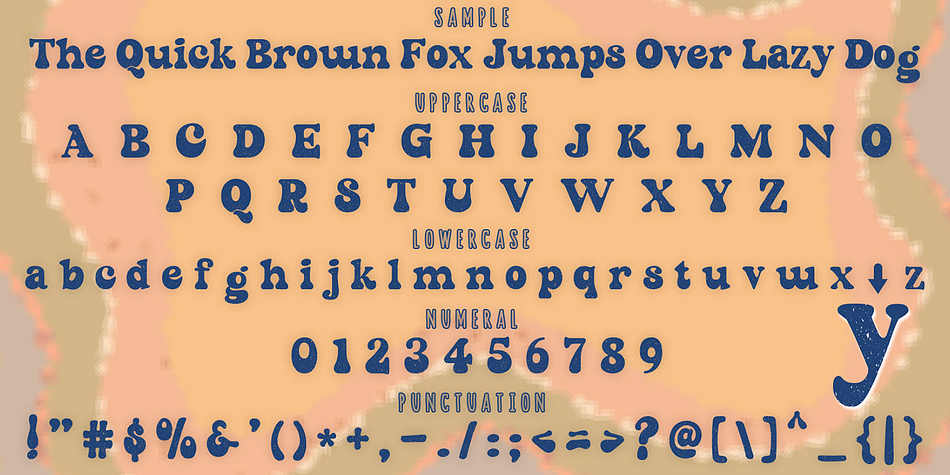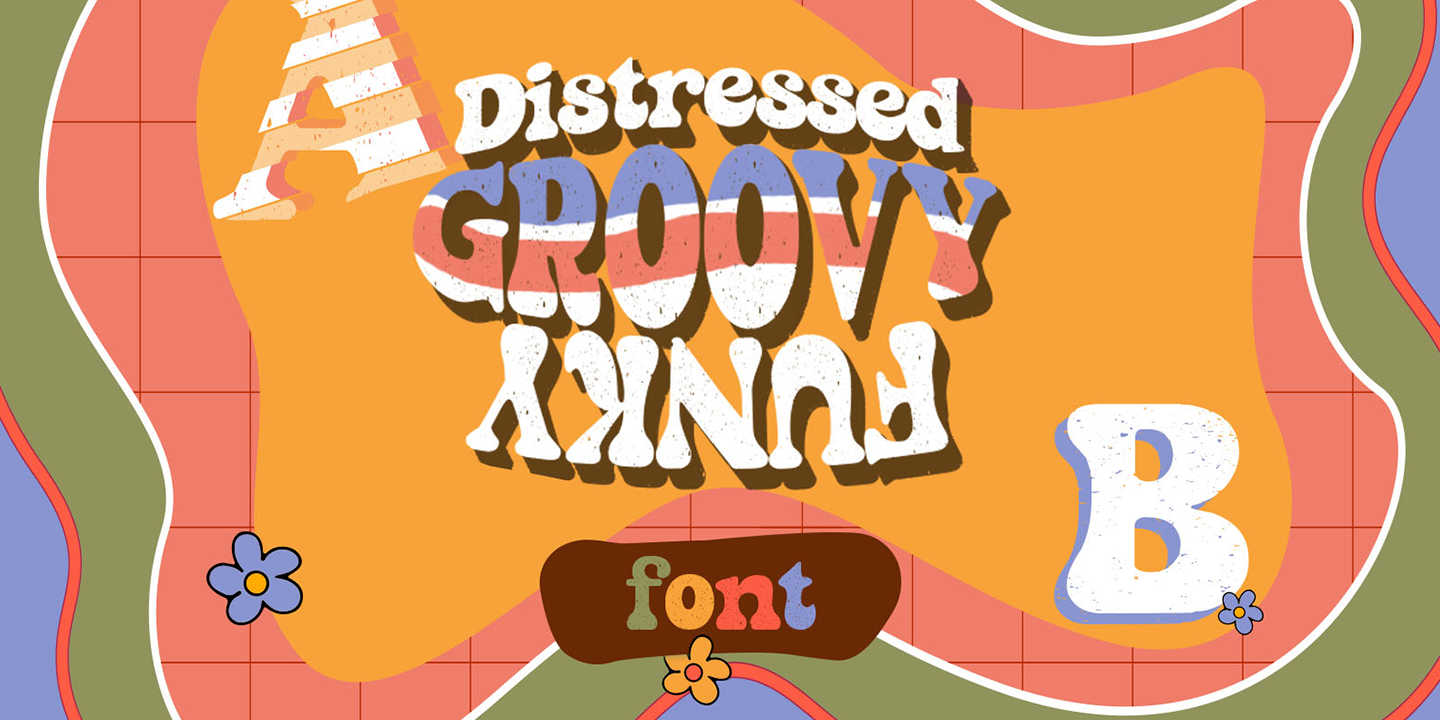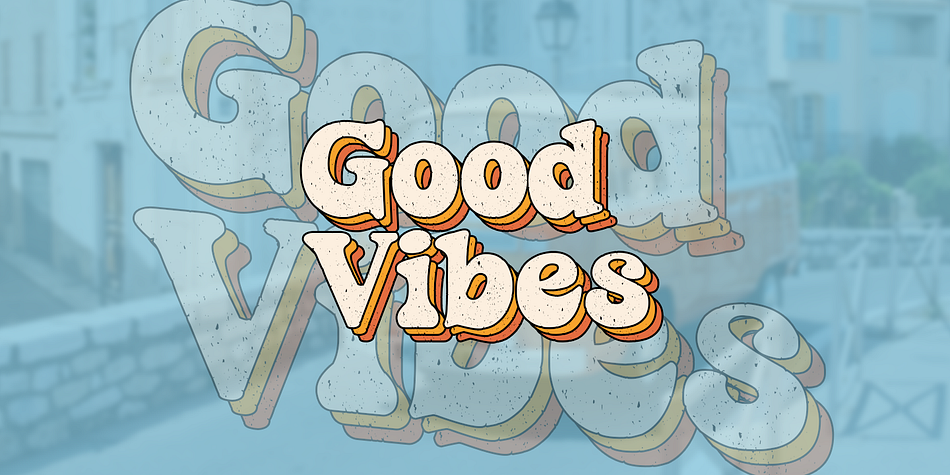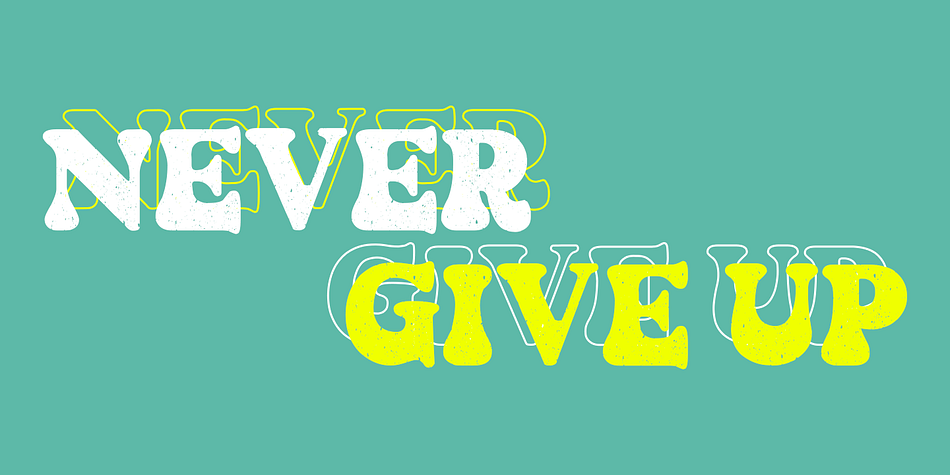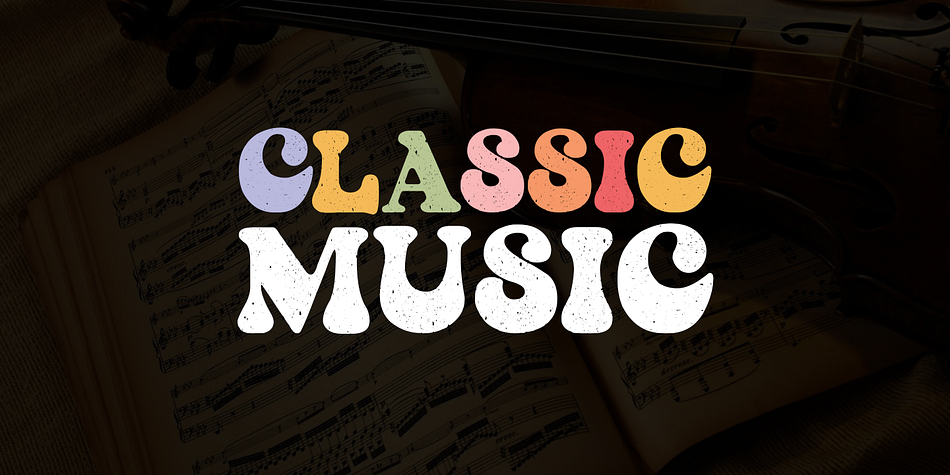
Distressed Groovy Funky
Designed by Mohammed Lamjidi, Distressed Groovy Funky is a display font family published by Beast Designer.
Distressed Groovy Funky Font is a cute classic display font.
It’s suitable for retro design also perfect for designing t-shirts, tote bags, hats, stickers, wedding designs, logos, cards, and more!
Incredibly distinct and timeless style and use it to create spectacular designs!